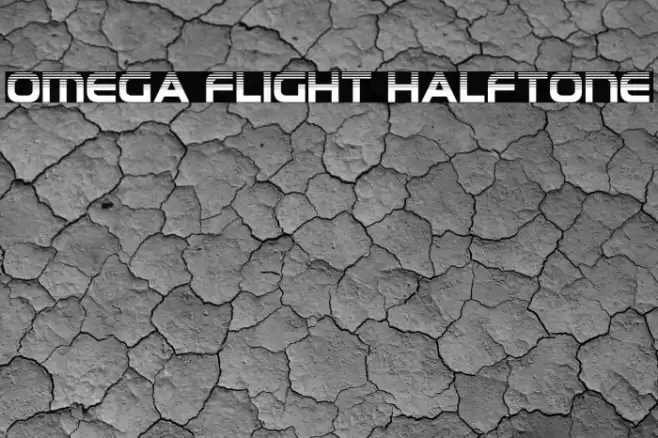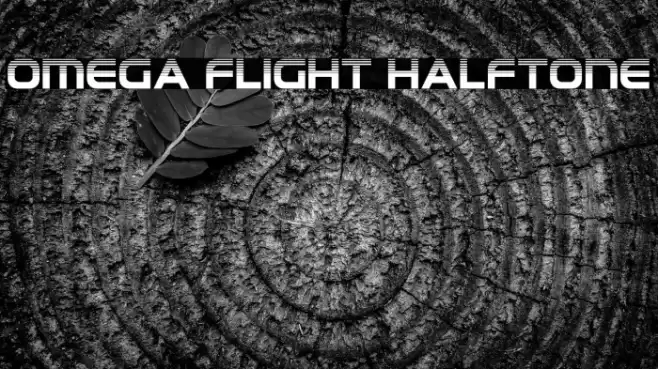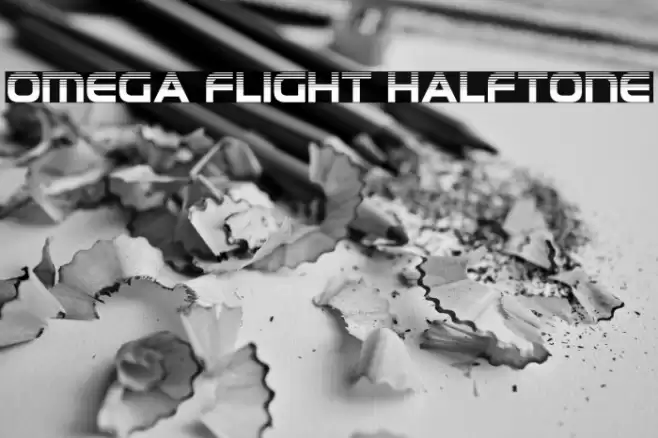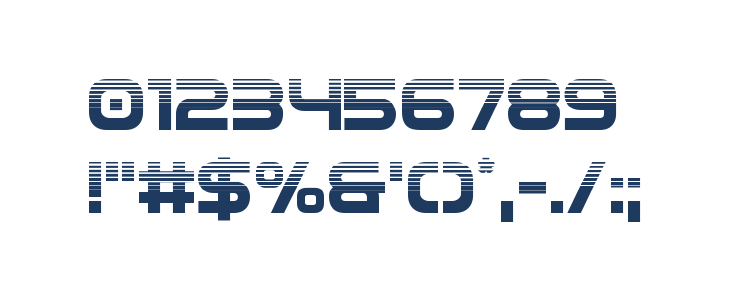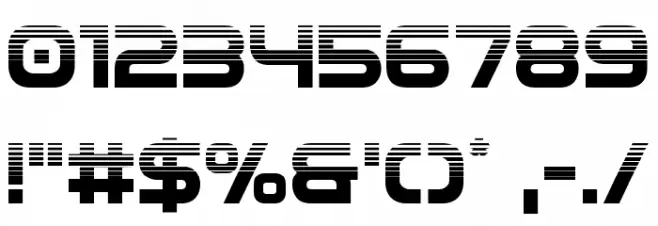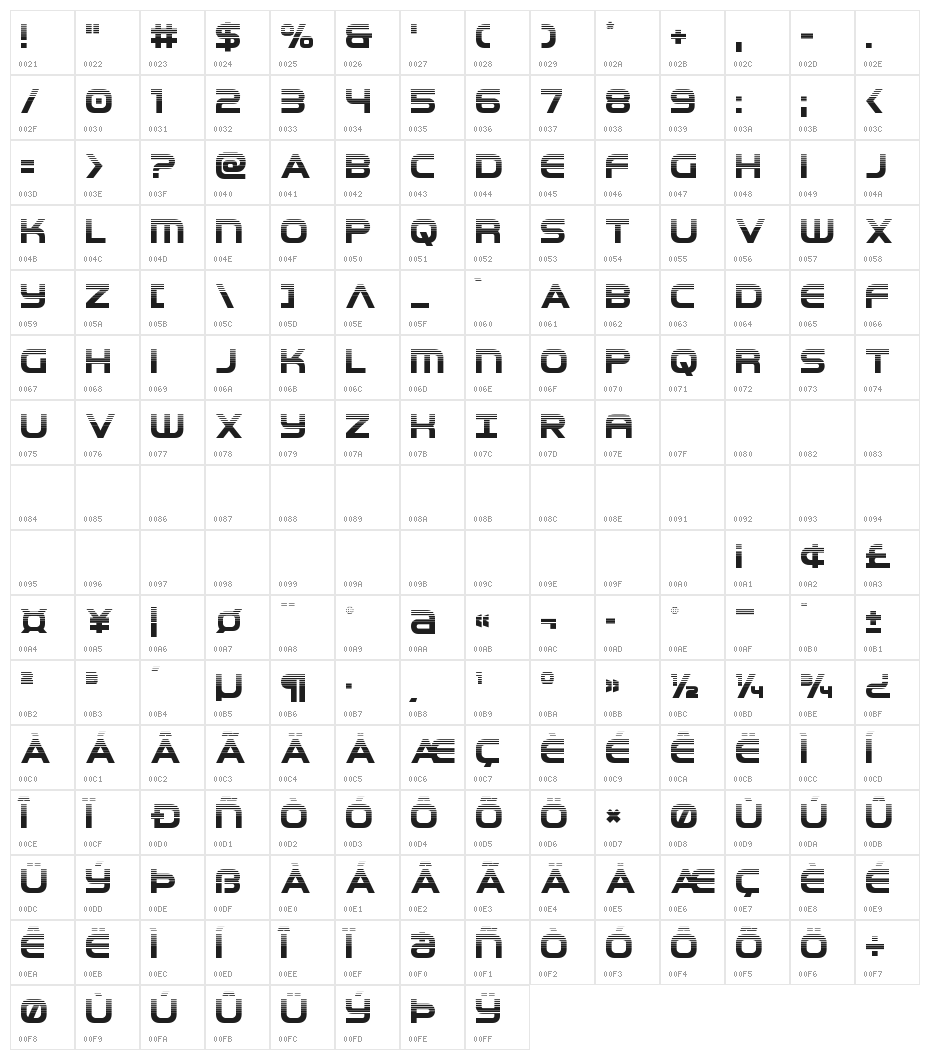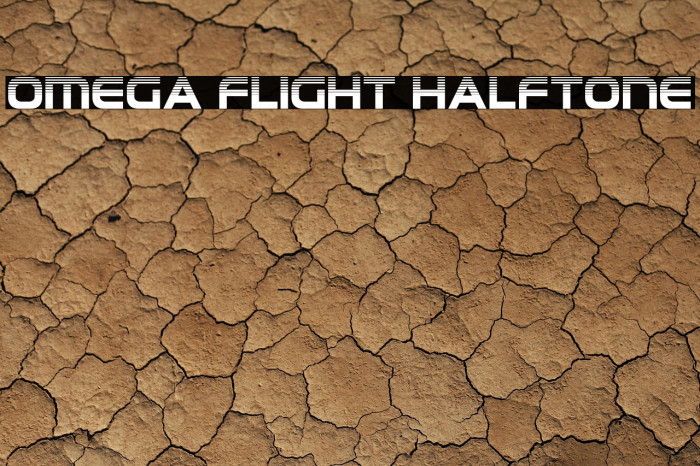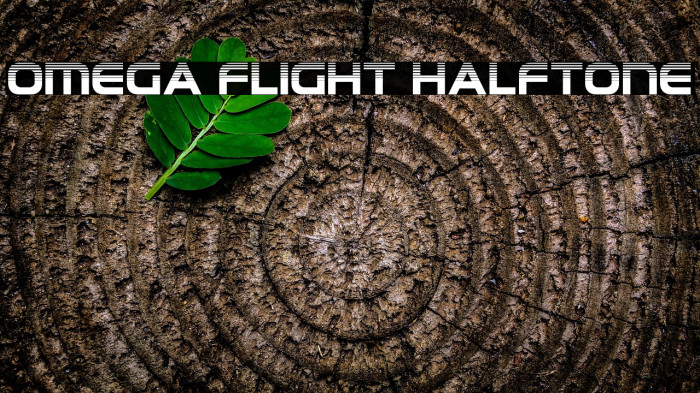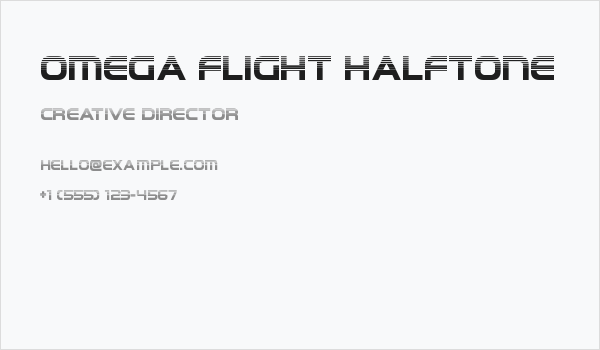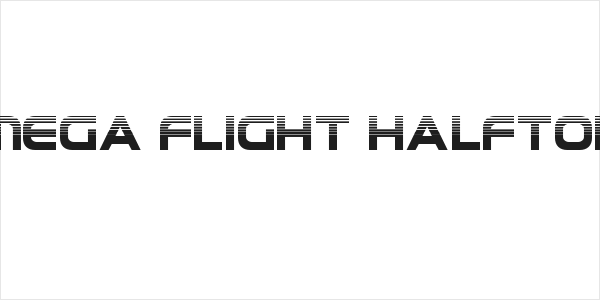
Omega Flight Halftone Font
Omega Flight Halftone Description
This font features a futuristic and bold design with a halftone effect that gives it a unique, digital appearance. The characters are constructed with horizontal lines that create a sense of movement and energy. The uppercase and lowercase letters maintain a consistent style, with sharp angles and a geometric structure. The numbers and special characters are equally bold, ensuring uniformity across all elements. This font is highly stylized, making it ideal for projects that require a modern and eye-catching typeface.
- Proposed Projects: Ideal for technology branding, sci-fi posters, video game titles, and digital media.